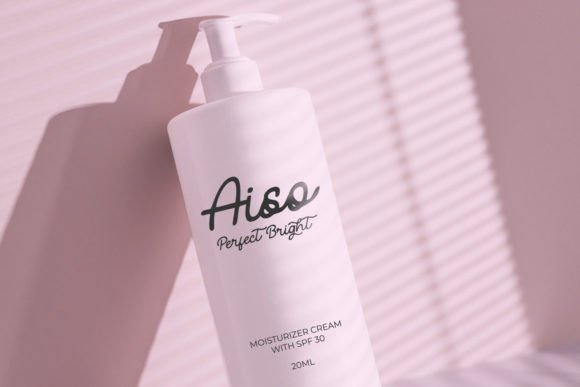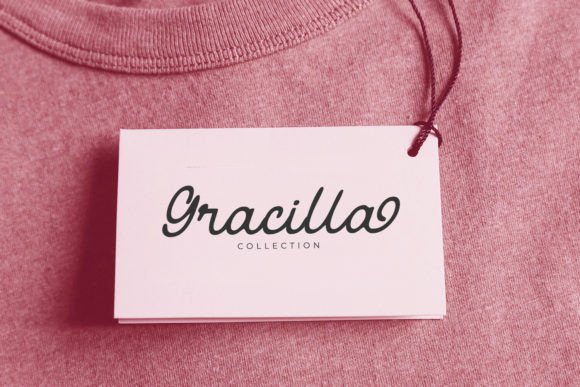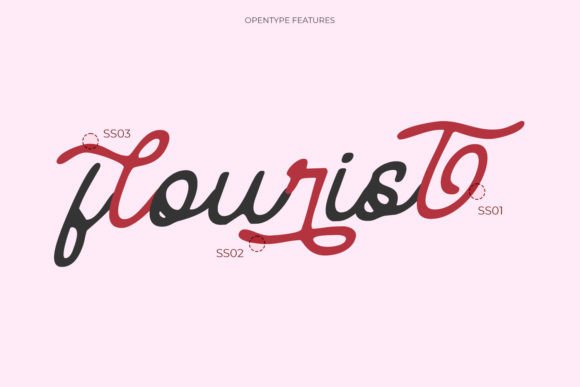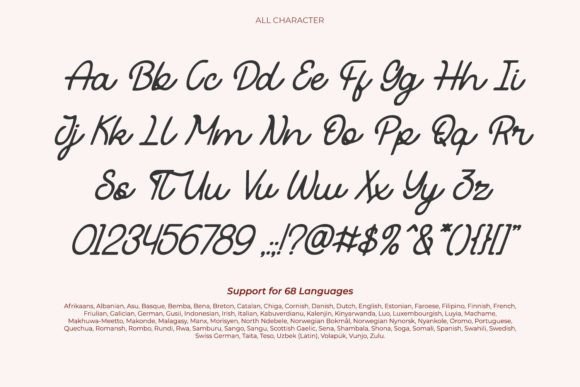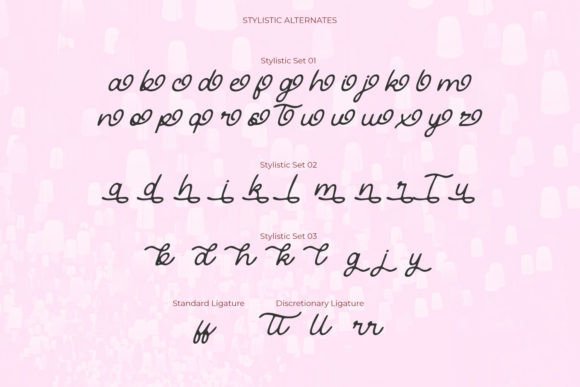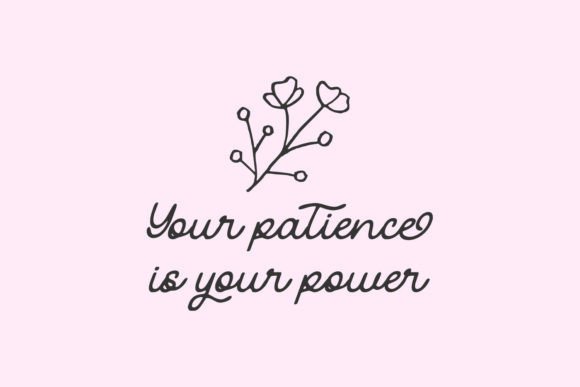
Introduction to Opulent Floral Font
Opulent Floral is an exquisite script font that embodies the graceful elegance of cursive handwriting.
At its core, Opulent Floral is crafted to resemble cursive handwriting, with each character flowing seamlessly into the next The letter weight is delicately balanced, with a subtle thickness that adds a touch of refinement without overpowering the text.
Key Features of Opulent Floral Font